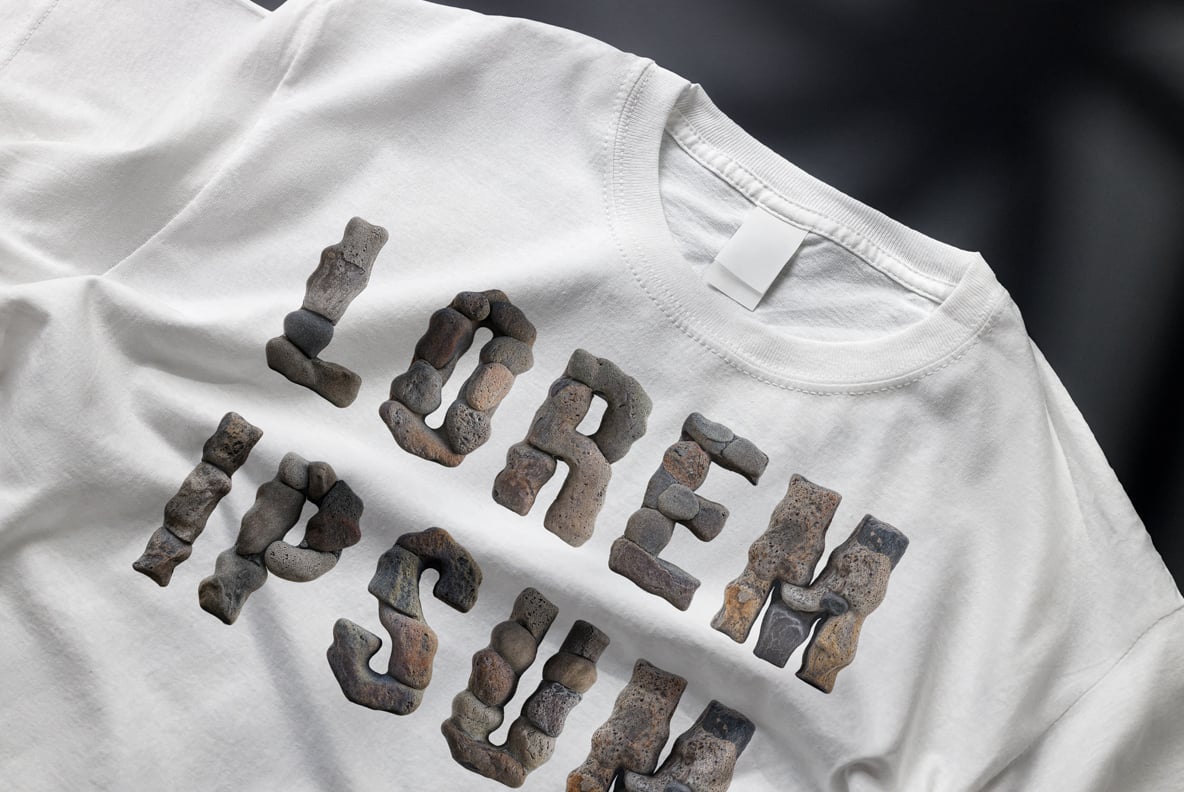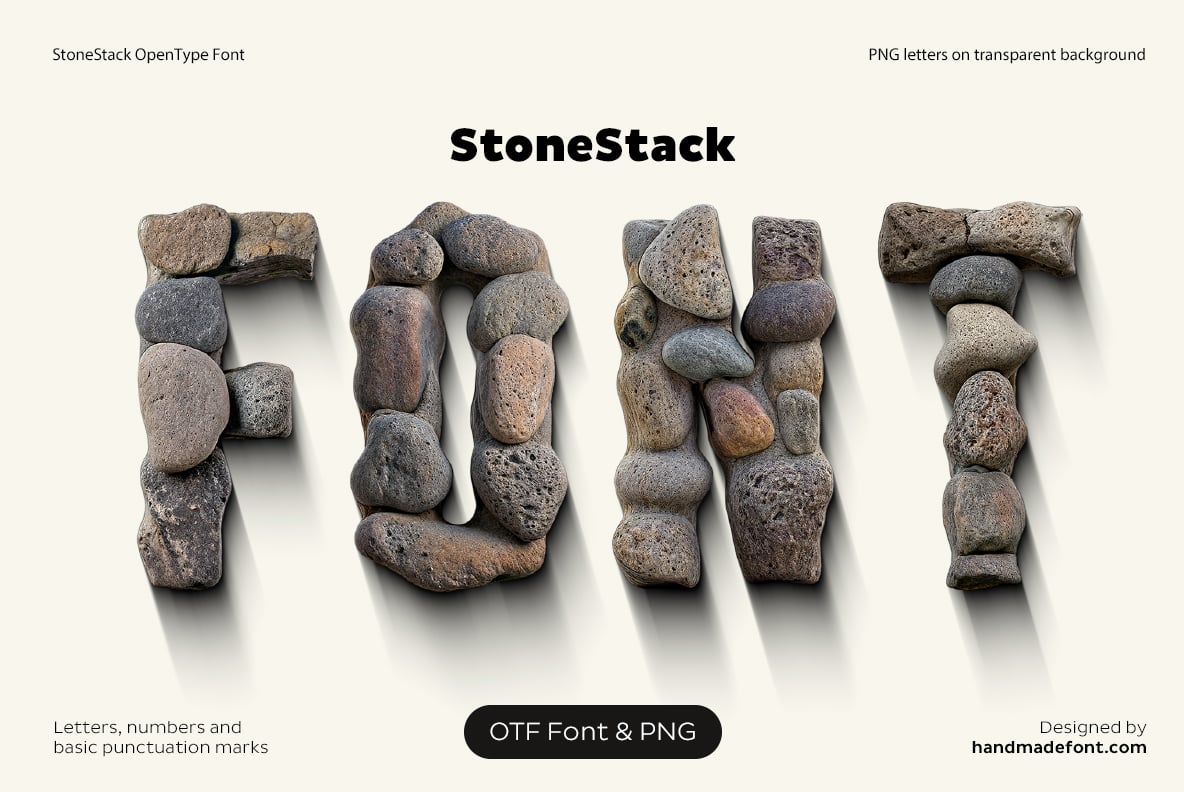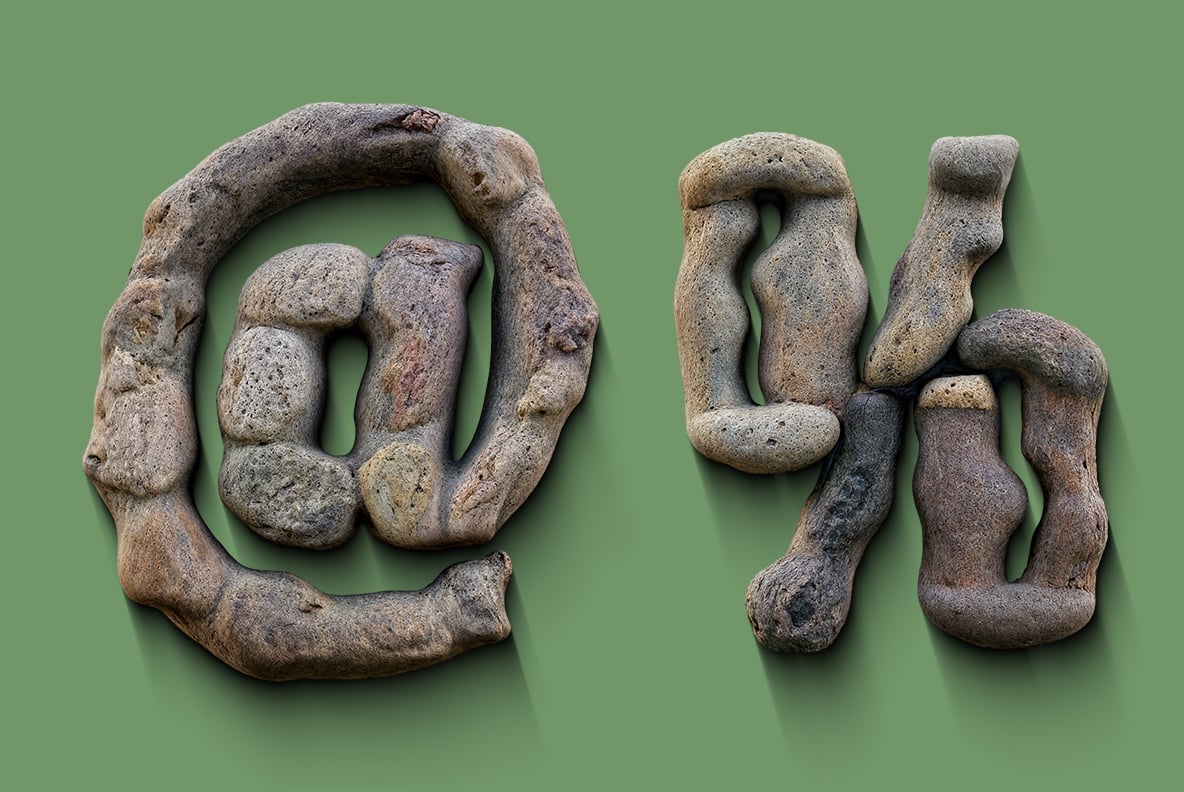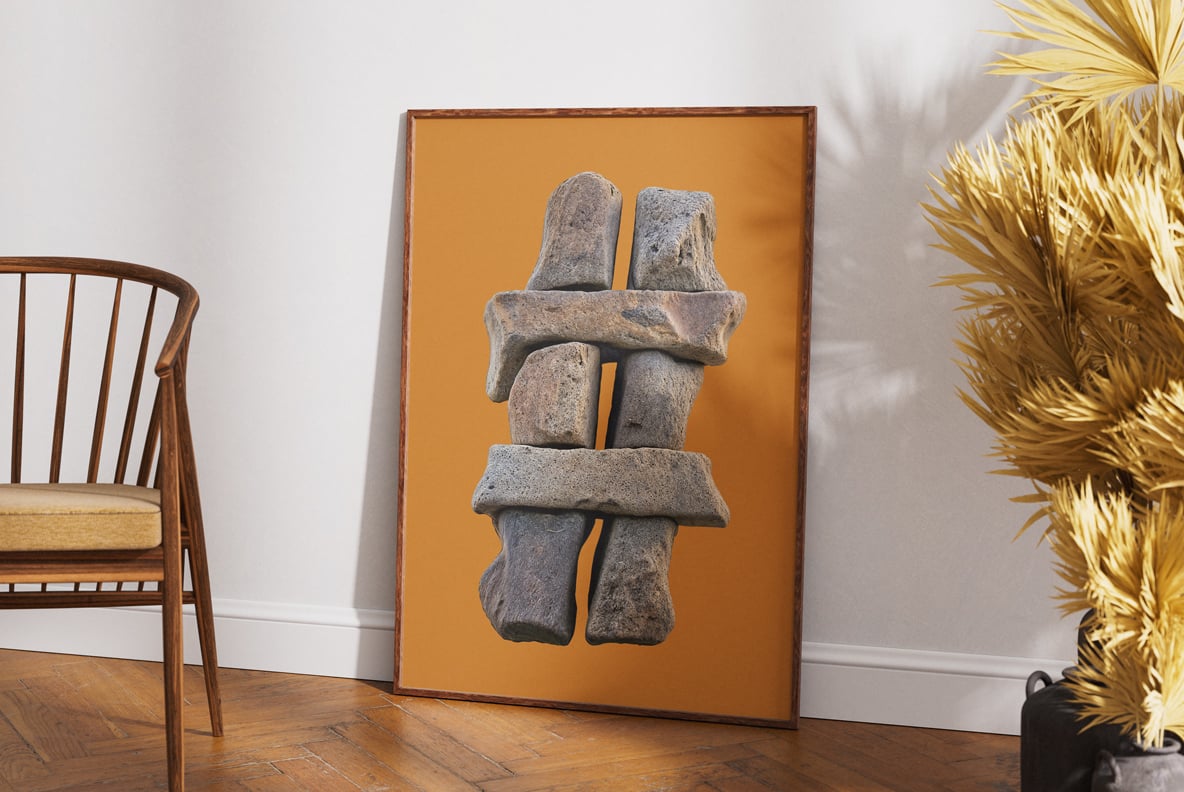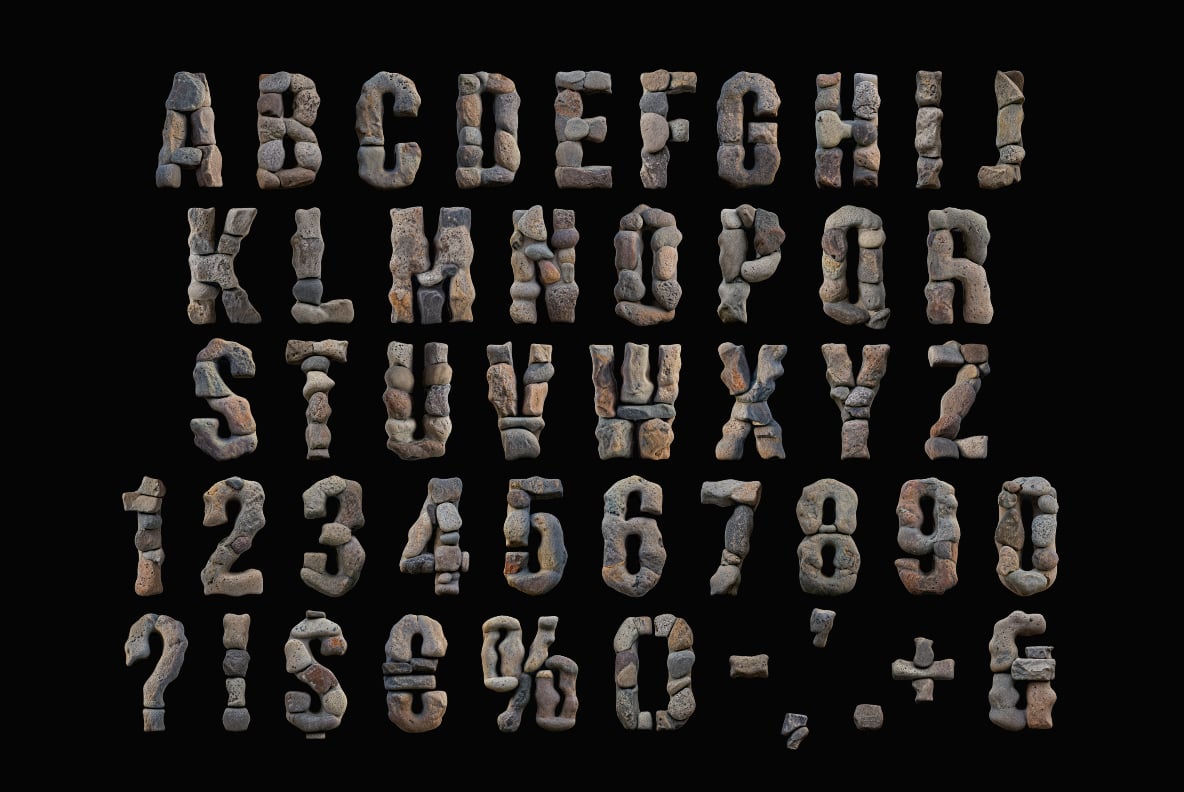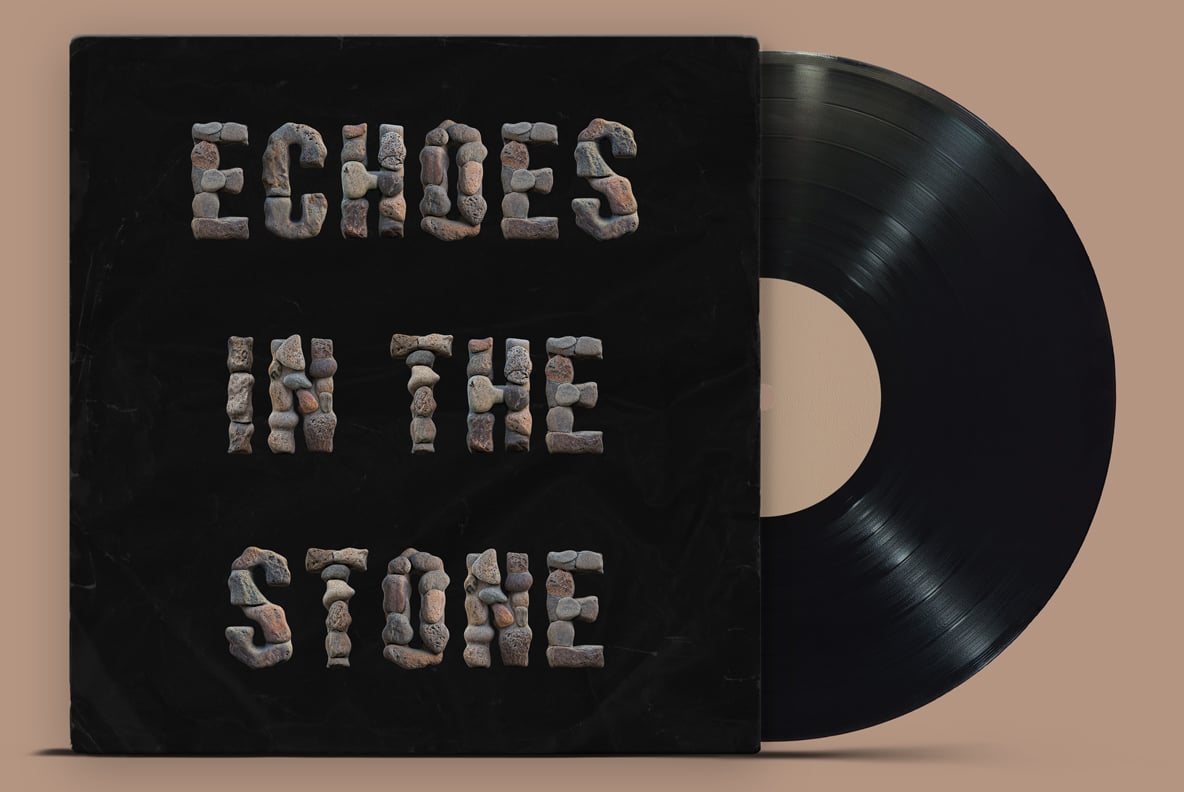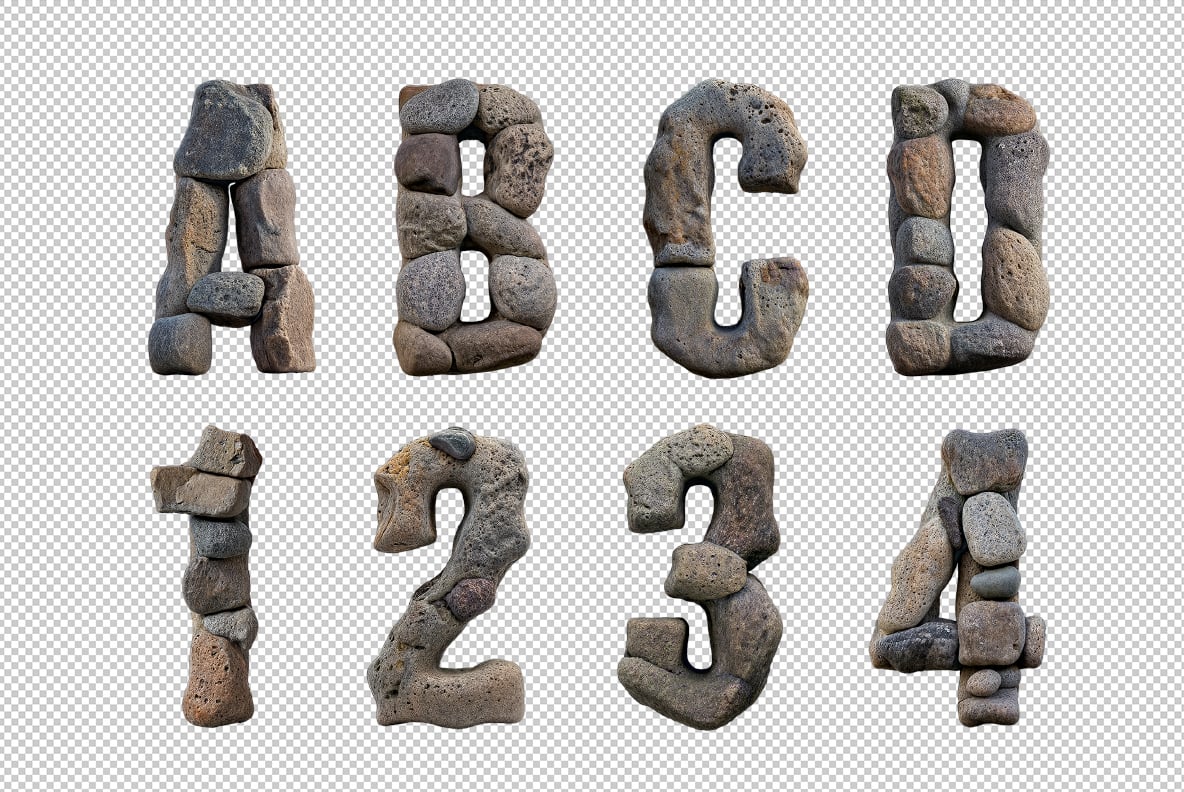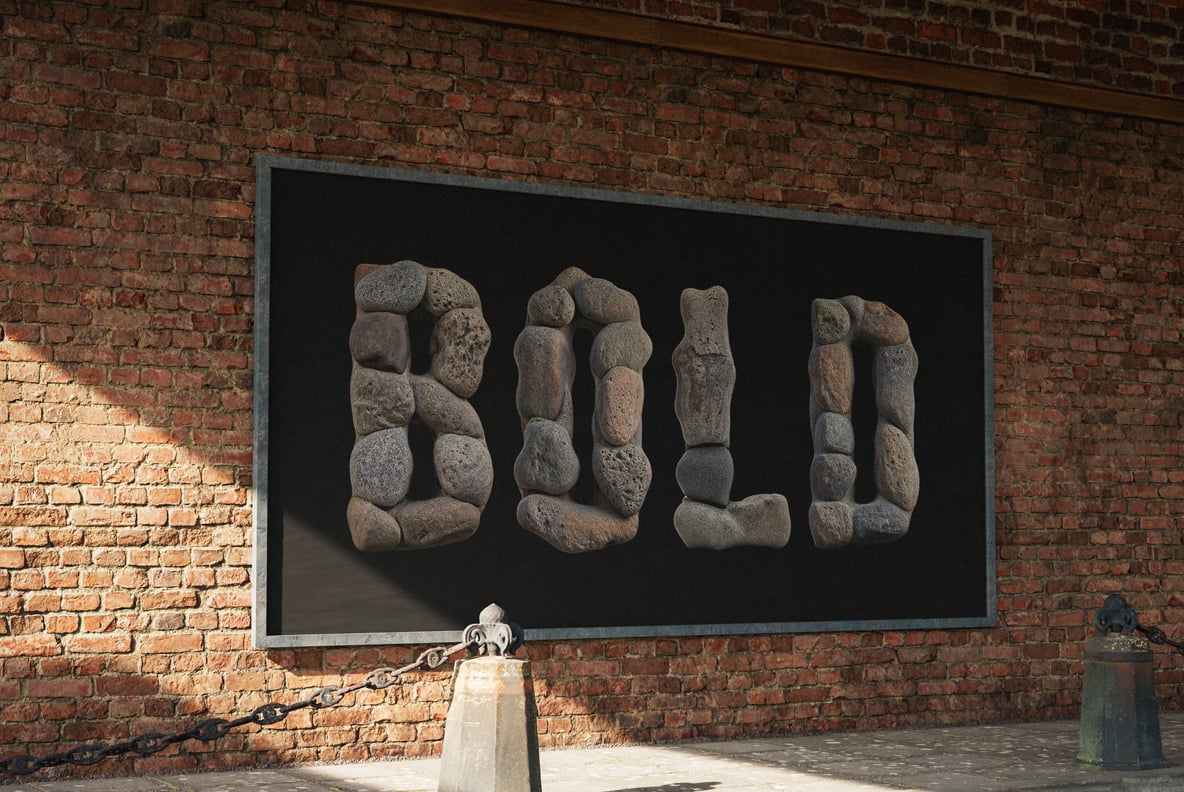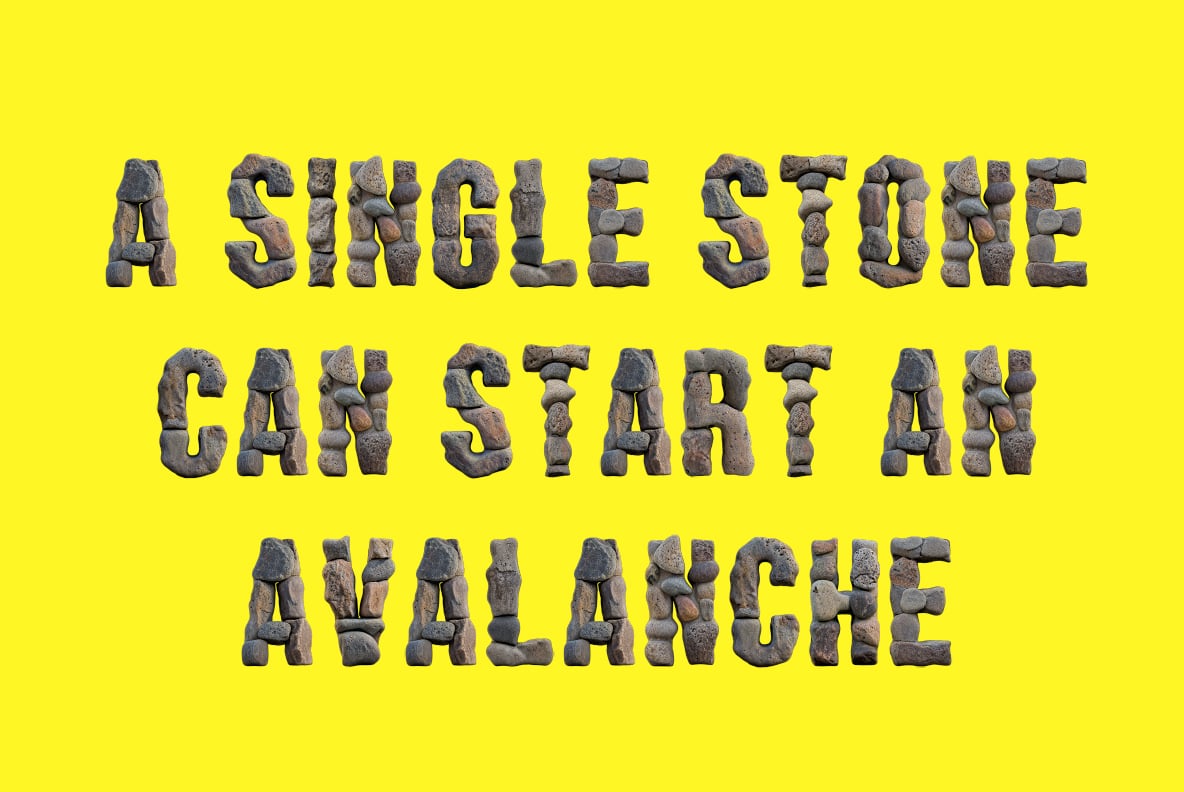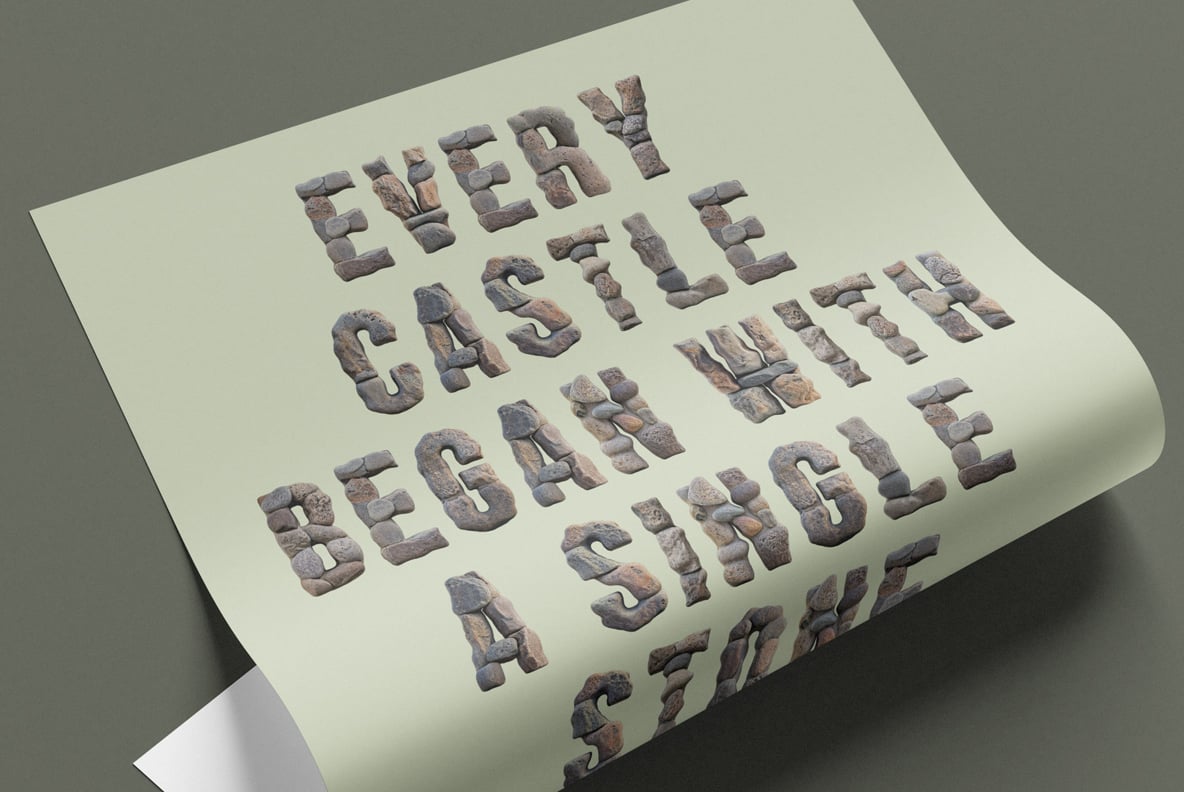
Stone Stack Font
Strong like a boulder, yet balanced like a pebble pyramid — the Stone Stack Font is where stone lettering meets sheer creative genius. Each letter is a rugged masterpiece, crafted from carefully stacked stones of all shapes, sizes, and earthy hues. It’s not just a stone alphabet — it’s a rock-solid statement. Bold, unbreakable, and undeniably stone-inspired, this stone font turns rough textures into smooth design magic. Think of it as typography built by a very patient caveman with an eye for aesthetics. If rocks could write, this is what they'd spell out — strong, sturdy, and stylish. Stone-cold cool, right?
A high definition OpenType Font. Contains uppercase characters, numerals and basic punctuation. (Draw height roughly 800 pixels). All letters and glyphs that comprises this font you can see on the preview.